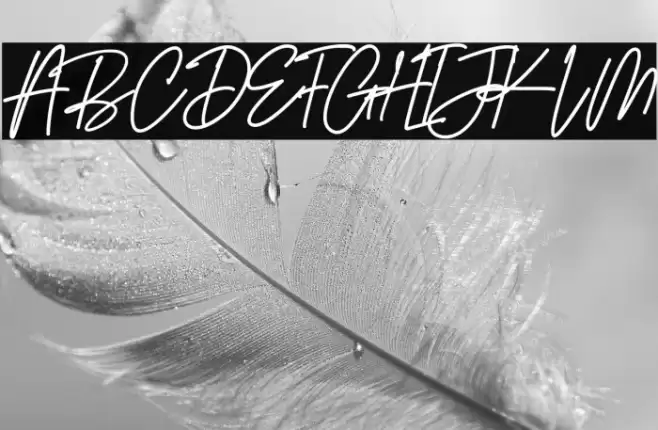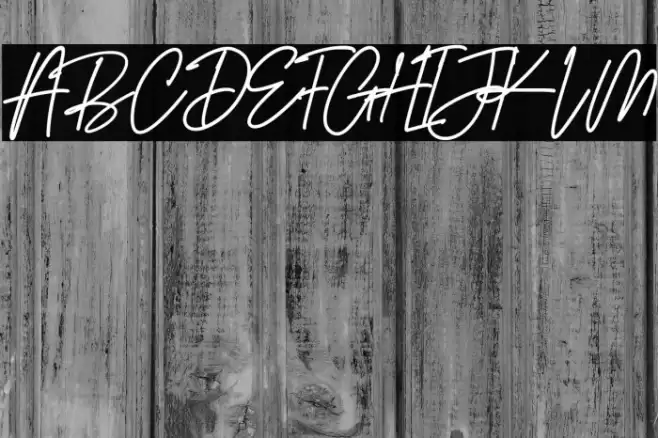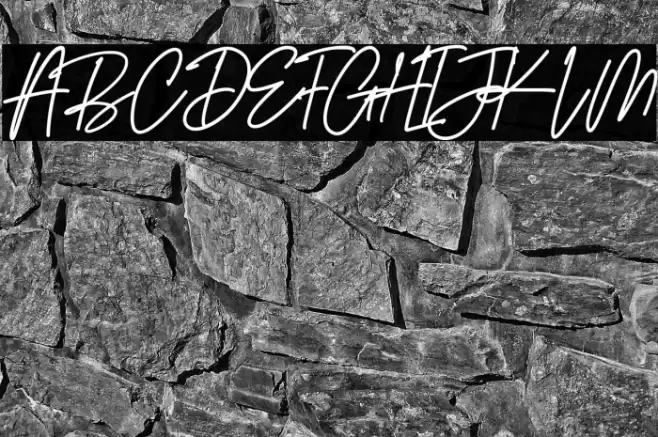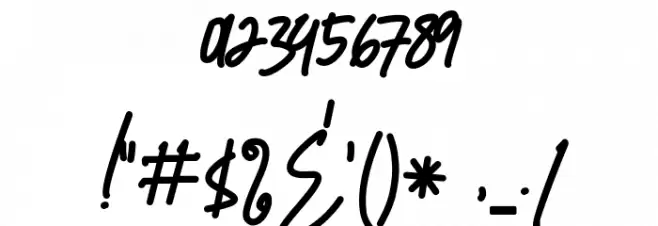
Gaston Villa Font
Gaston Villa Description
This font features a lively and expressive handwritten style, characterized by its fluid and dynamic strokes. The uppercase letters are tall and slender, with a slight slant that adds to the casual elegance of the design. The lowercase letters maintain a consistent flow, with loops and curves that enhance the handwritten feel. Numbers and special characters are crafted with the same attention to detail, ensuring a cohesive look across all elements. The overall appearance is both playful and sophisticated, making it suitable for a variety of creative projects.
A lively, expressive handwritten font with fluid strokes and a casual elegance from Uncategorized fonts.
- Font: Gaston Villa
- Proposed Projects: Ideal for wedding invitations, greeting cards, personal branding, and creative social media graphics.
- Use Case: Logos, Headlines, Invitations